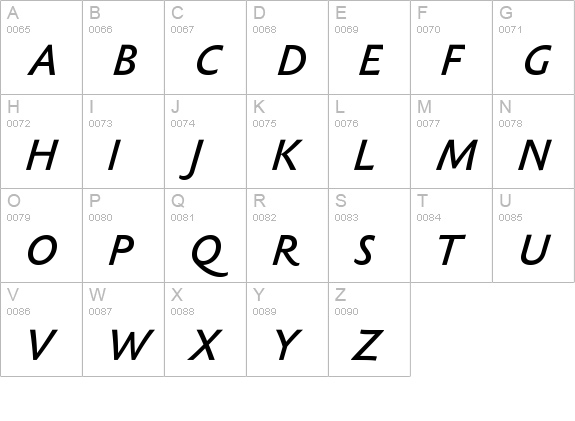
Sebastian Medium Pro Italic is a balanced, medium-weight, italic variant in the Sebastian typeface family \xE2\x80\x94 well suited to sub-headlines, navigation, and balanced editorial work.
Sebastian Medium Pro Italic font is a versatile and elegant typeface that effortlessly combines modernity with classic charm. The slanted and stylish letterforms exude sophistication and professionalism, making it an excellent choice for various design projects. The italicized variant of Sebastian Medium Pro adds a touch of flair and uniqueness to any text, lending a sense of dynamism and movement. The gentle curves and delicate strokes create a harmonious and visually pleasing rhythm that captivates the reader's attention. This font is perfect for conveying a sense of elegance and refinement in a wide range of applications, such as branding, advertising, editorial design, and more. Its versatility allows it to adapt to various design styles and contexts, from corporate presentations to creative projects. What adds to the appeal of Sebastian Medium Pro Italic font is that it is freely available to download at FontsMarket.com. This means that you can easily access this stunning typeface and use it in your design projects without any cost. Whether you are a professional designer or a hobbyist, this font is a valuable addition to your typographic toolkit. With its exquisite design and the convenience of being able to download it for free, Sebastian Medium Pro Italic font is an excellent choice for those looking to elevate their designs with a touch of sophistication and elegance. Embrace the beauty of this typeface and unlock its full potential in your creative endeavors.